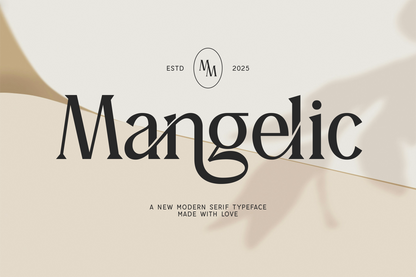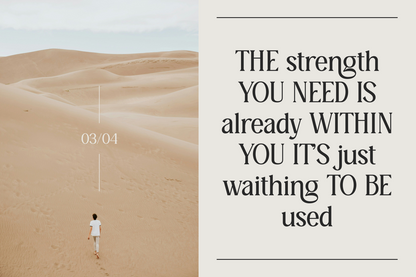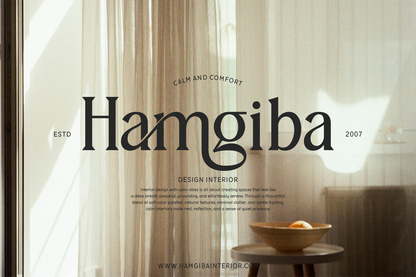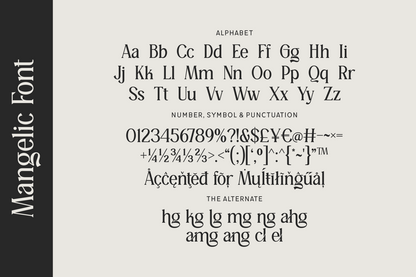
Mangelic is a graceful and artistic modern serif typeface, designed with refined ligatures and thoughtful curves. Its elegant and professional character makes it perfect for branding, fashion editorials, luxury packaging, wedding invitations, and high-end business identities. Mangelic beautifully balances timeless sophistication with modern style.